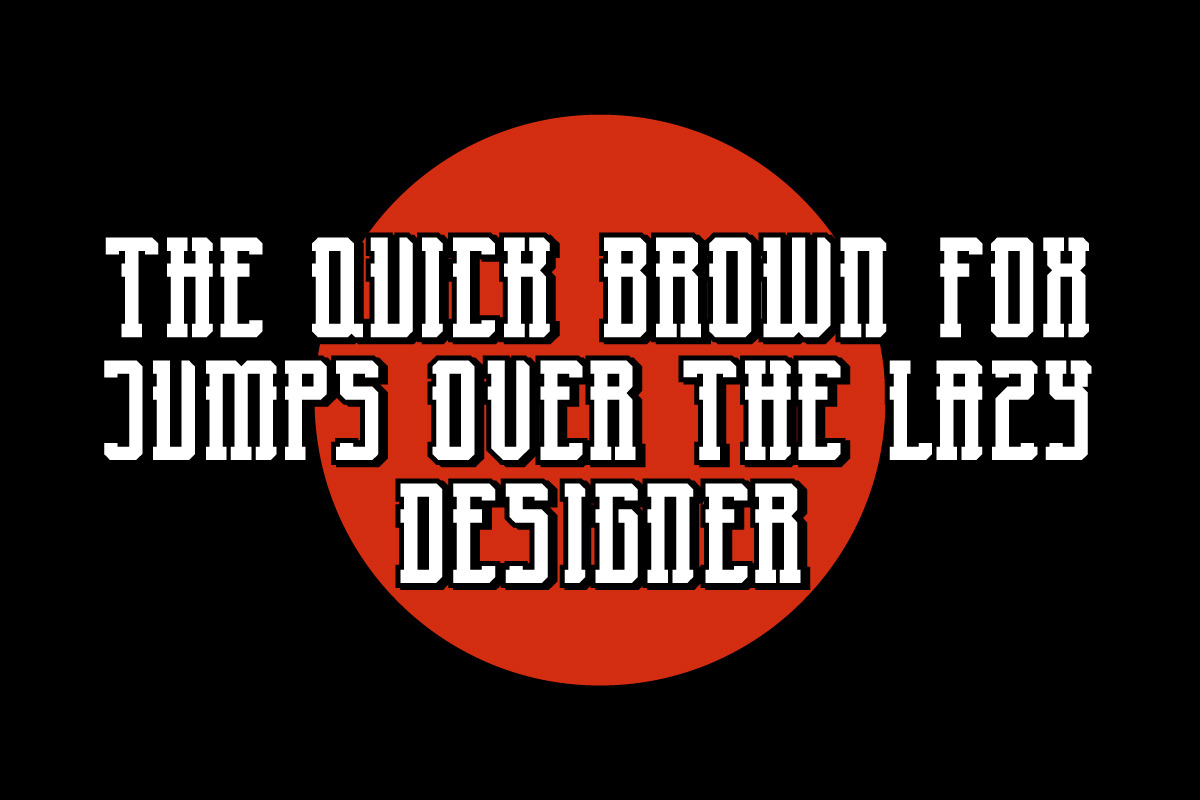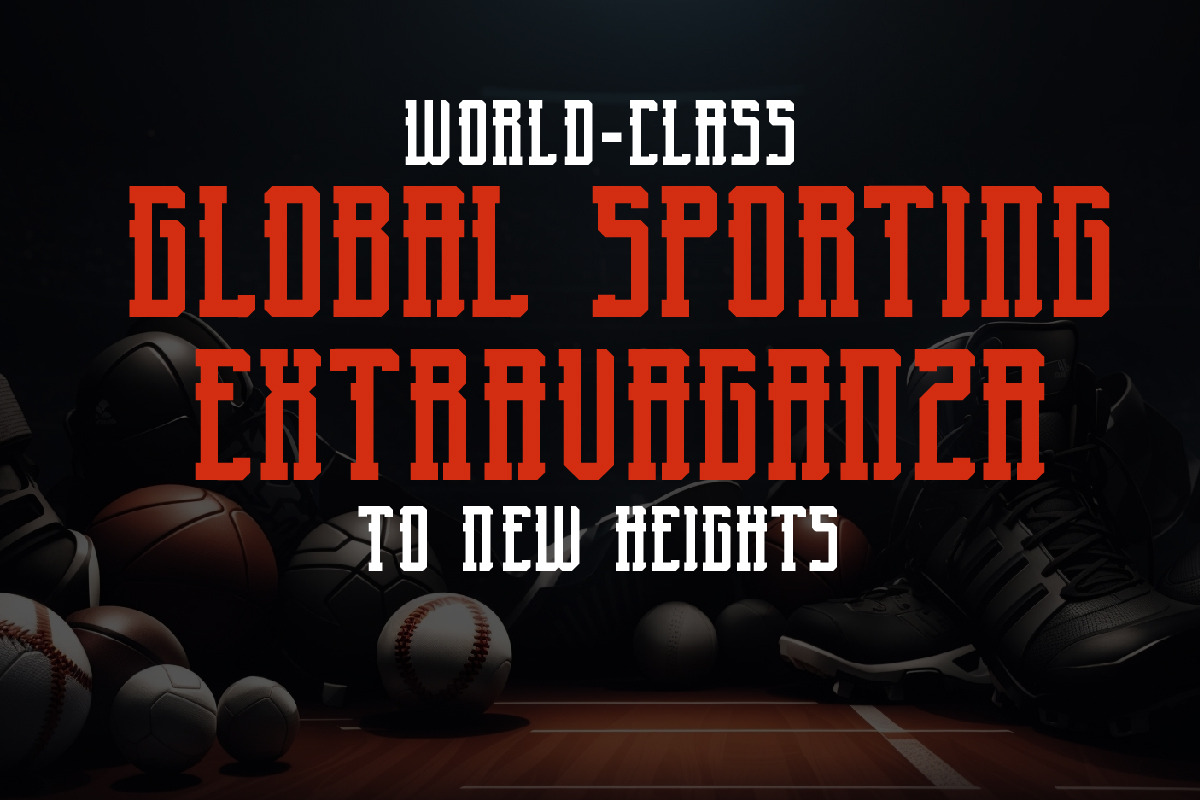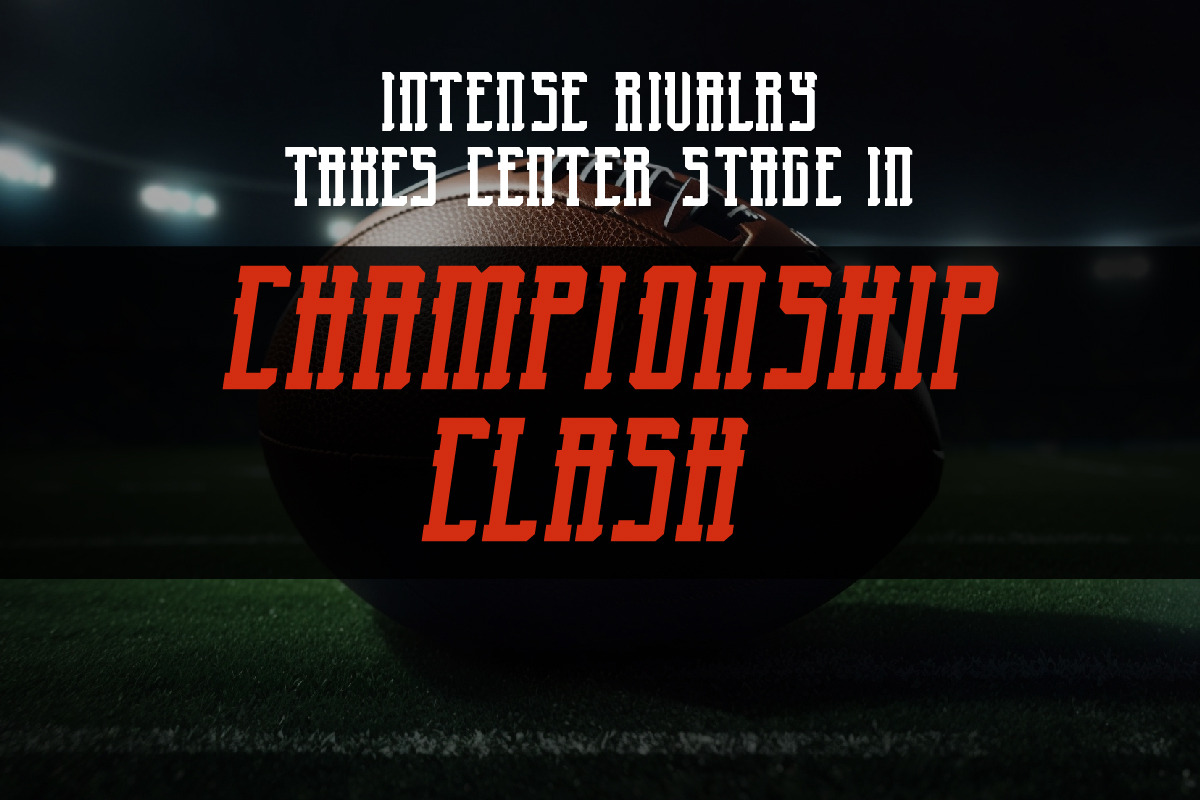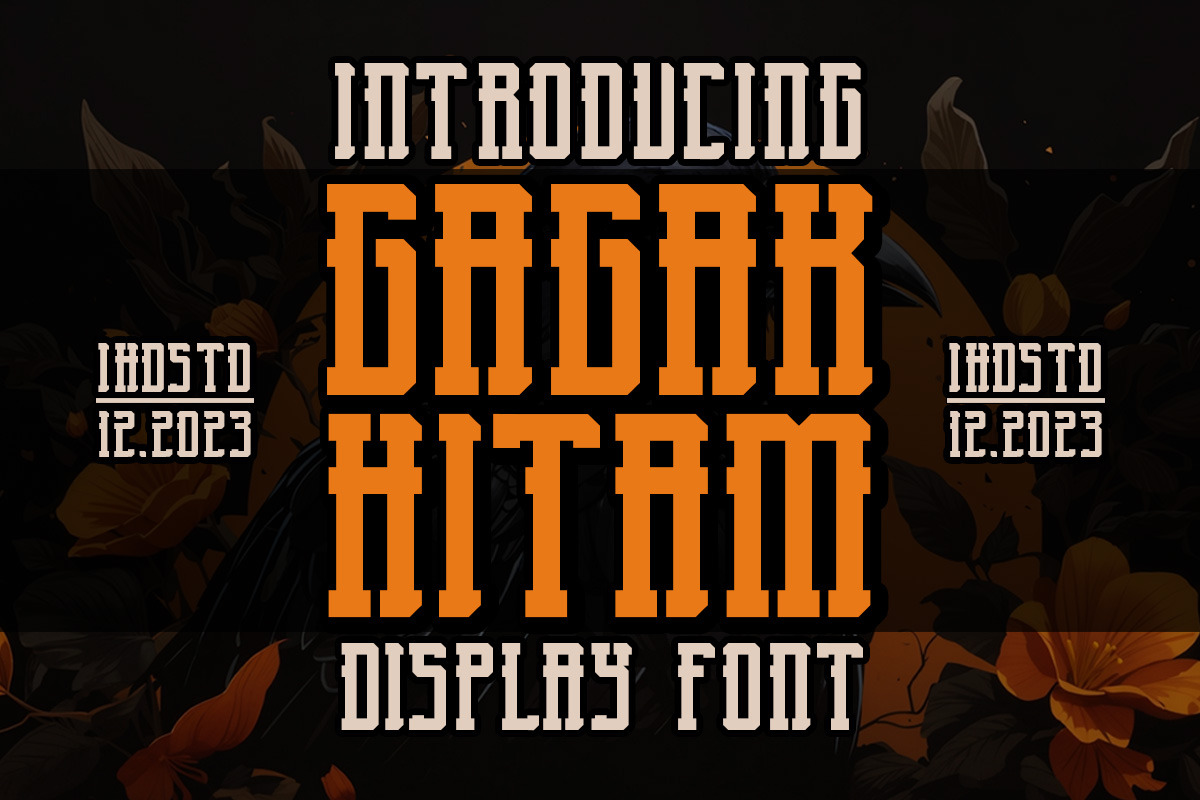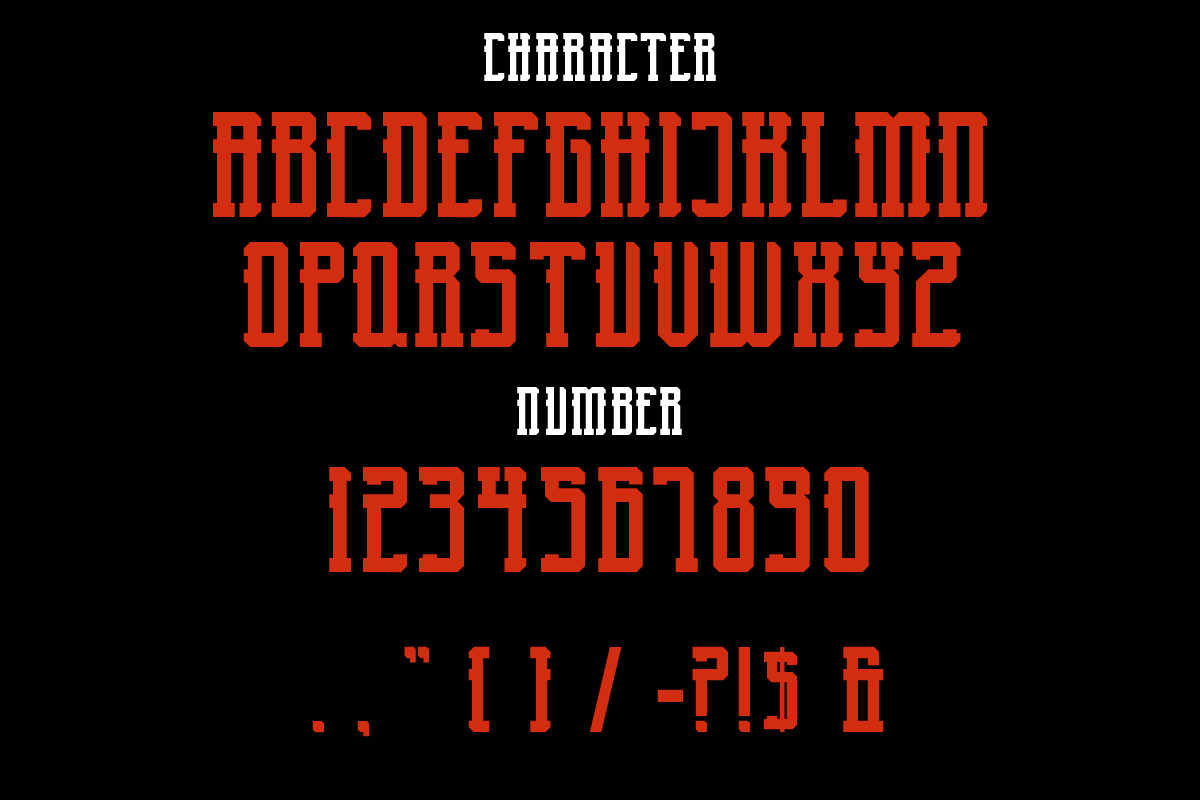
Gagak Hitam Display Font
Gagak Hitam Display font is our new item suitable for your Posters.
Great for Logo, Poster, Sticker, Jerseys, Invitation Card, Brochure, etc.